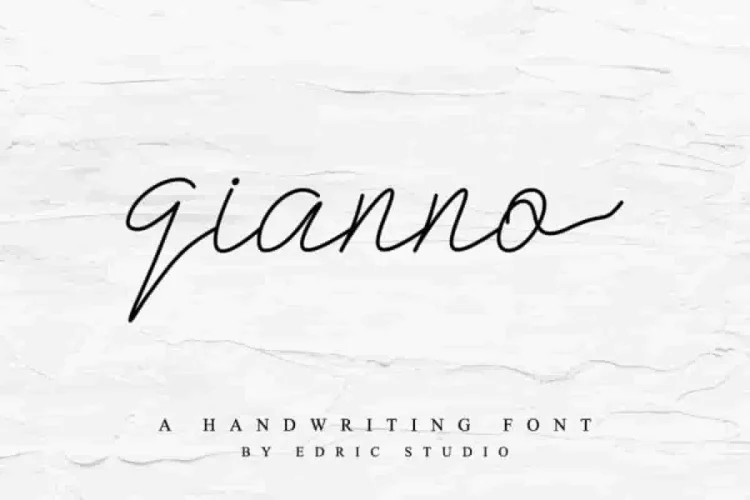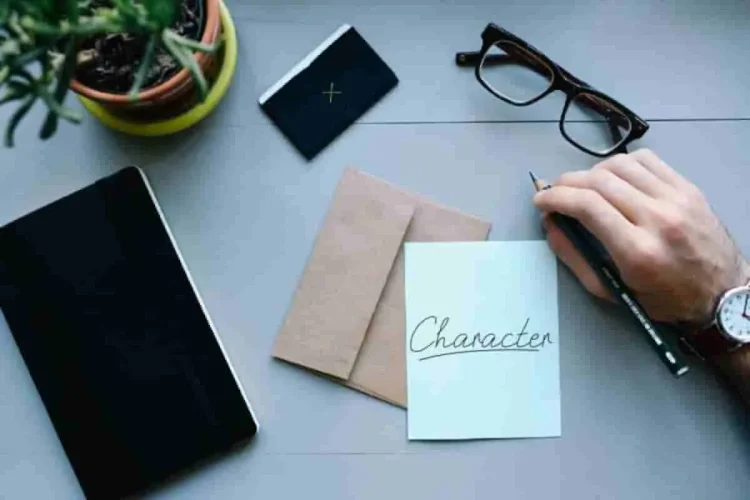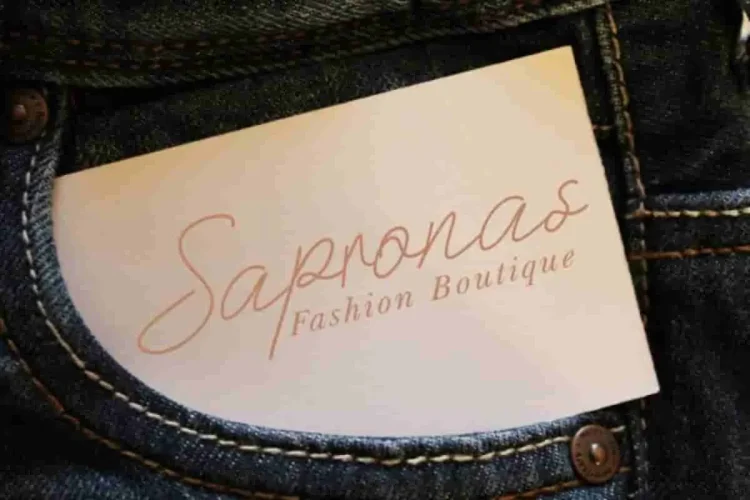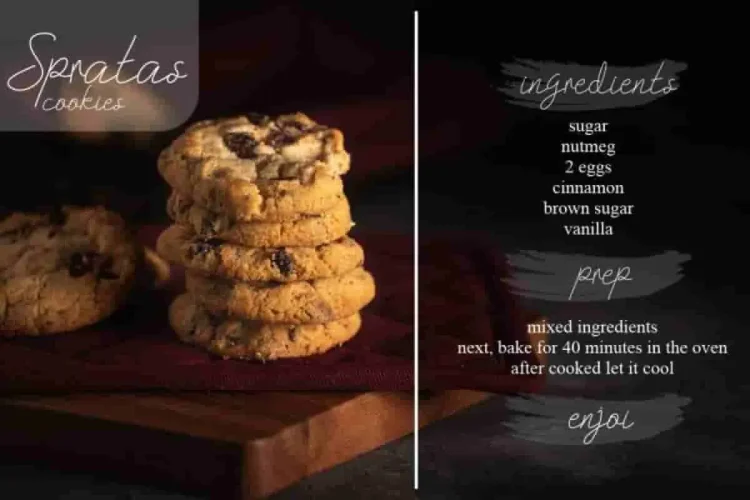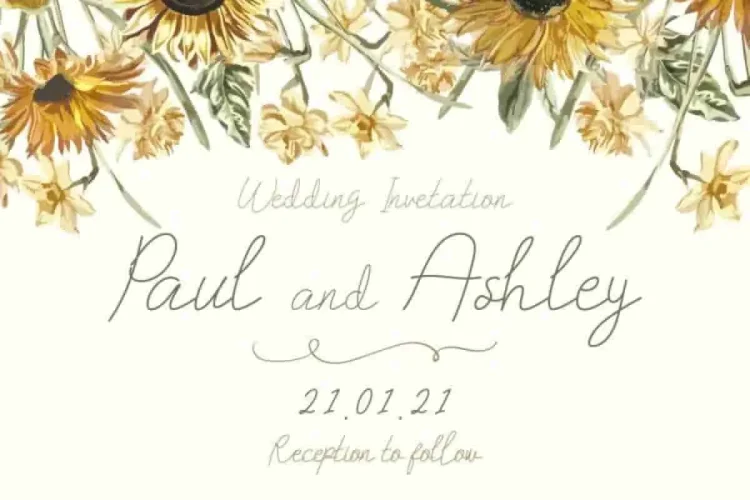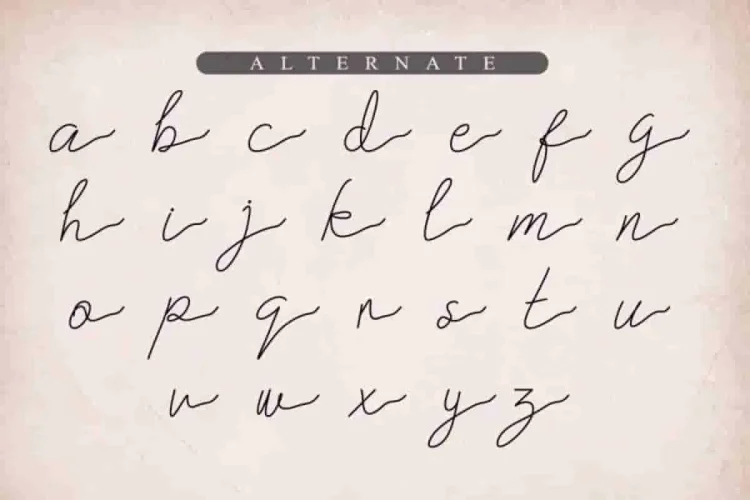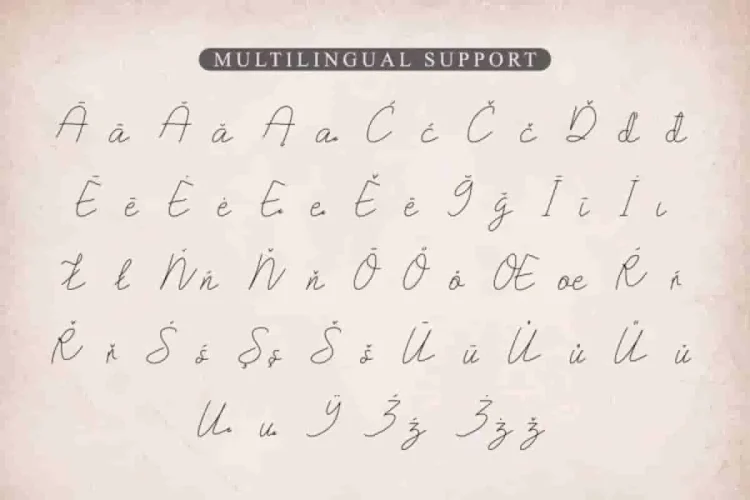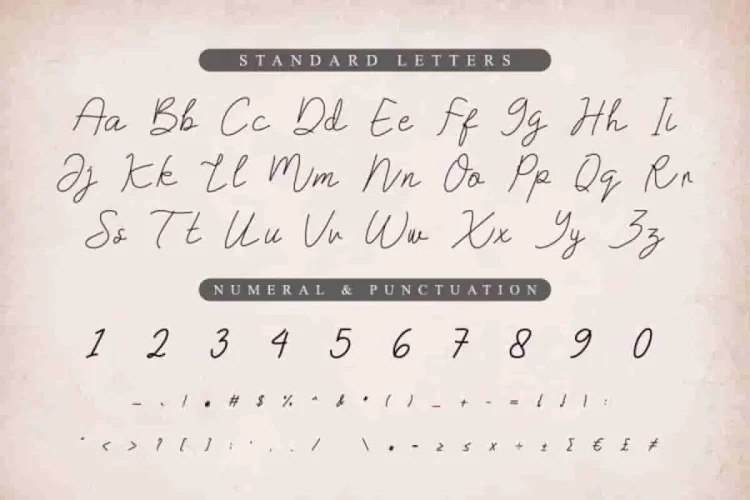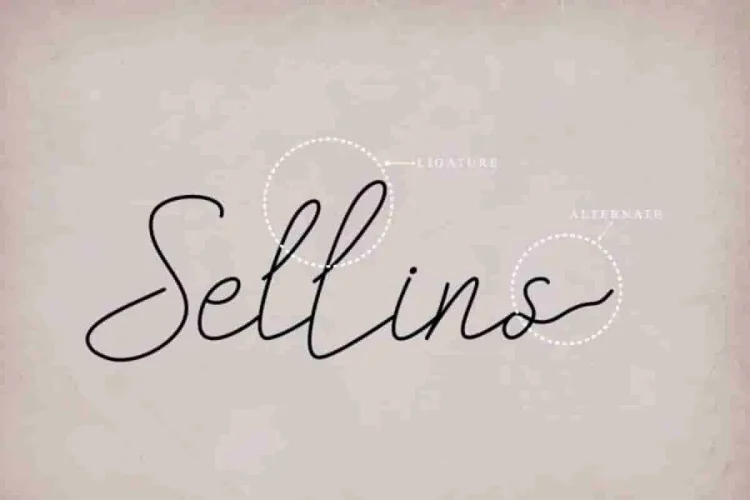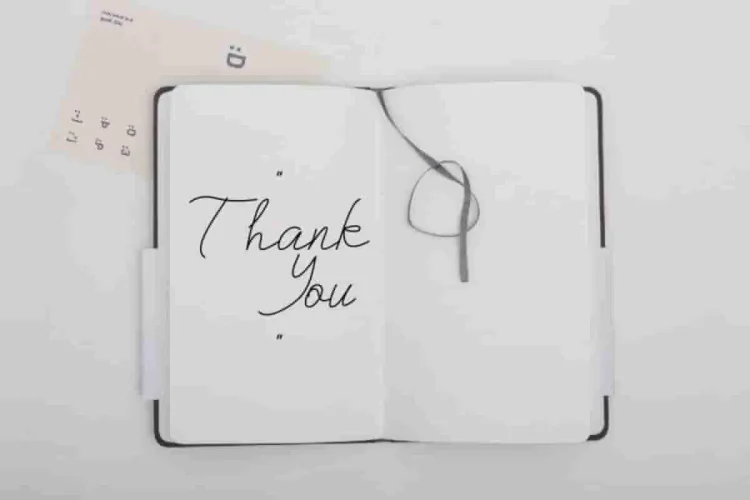
Qianno Monoline Handwritten Font
Let us introduce you: a new baby beauty font by Edric Studio in 2020 : Qianno Monoline Font
Qianno is a Monoline script handwritten font, handcrafted here on our hometown: Indonesia.
This is a new script font with handwriting style that has unique glyhps set that is the elegant, strong, vintage, stylish, sophisticated, complex, speed and classic pen / pencil/ monoline style. Also it has full lowercase alternatives on each gplyhs.
Plus it support multi-language